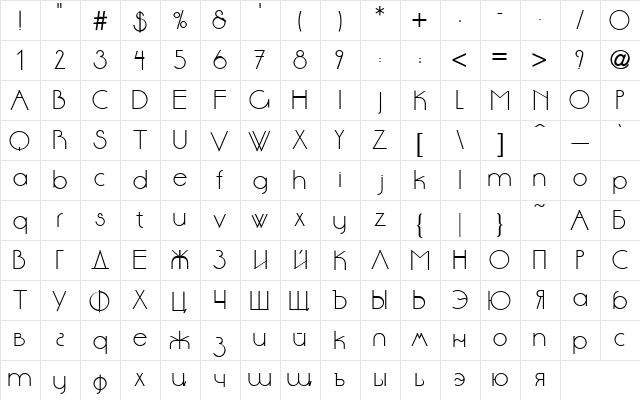
DS StandartCyr Regular
Design Context for DS StandartCyr Typeface
DS StandartCyr is a composed and adaptable typeface that performs quietly and consistently across a wide range of design contexts.